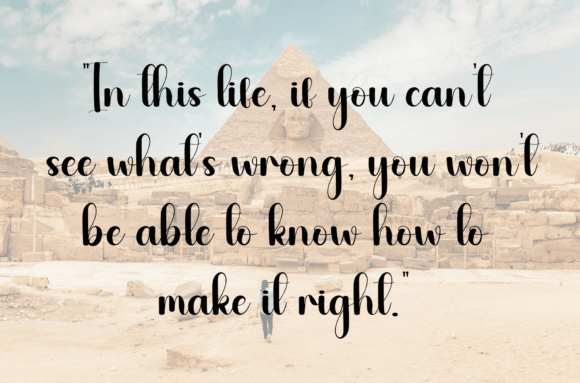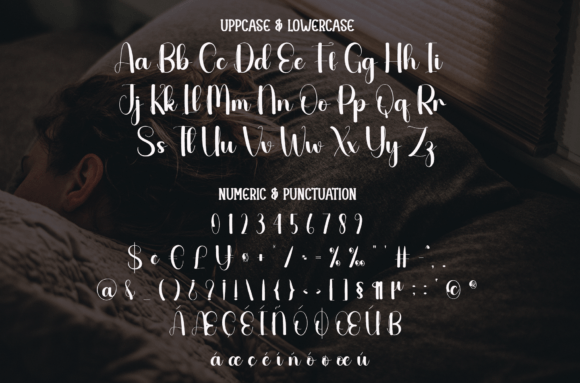
The Sweet Goodnight Font: A Designer’s New Best Friend
I’ll never forget the time I was working on a wedding invitation project, and my client asked for a font that was “sweet, friendly, and playful.” I scoured the internet, tried out dozens of fonts, but nothing seemed quite right. That was until I stumbled upon the Goodnight font. It’s a beautiful, handwritten font that has become a staple in my design toolkit. In this article, I’ll share my experience with Goodnight, its features, and how to make the most of it in your designs.
An Honest Review of Goodnight Font
- ✨ Fresh and neat design that’s perfect for a variety of projects
- ✅ Friendly and approachable feel that’s sure to delight your audience
- 💕 Beautifully crafted handwritten letters that add a personal touch
- 🎉 Highly versatile and can be used for wedding invitations, cards, and more
While Goodnight is an excellent font, it’s not perfect. Here are a few things to keep in mind:
- ⚠️ Some letters may not work well in all caps, so be sure to test them out
- 🤔 Limited availability of alternative glyphs, but what it has is well-designed
One of the best things about Goodnight is its support for OpenType features and glyphs. These features allow you to customize your text and add more personality to your designs. Here are a few tips:
The Story Behind Goodnight Font
Goodnight was designed with love and care by a talented type designer who wanted to create a font that would bring joy and warmth to people’s lives. The designer’s inspiration came from traditional handwritten fonts, but with a modern twist. The result is a font that’s both classic and fresh, perfect for a wide range of design projects.
Q: What type of projects is Goodnight best suited for?
A: Goodnight is ideal for wedding invitations, cards, and any other design that requires a friendly, approachable feel.
Q: Is Goodnight available in different weights or styles?
A: Currently, Goodnight is available in a single weight, but its versatility and range make it suitable for various design applications.